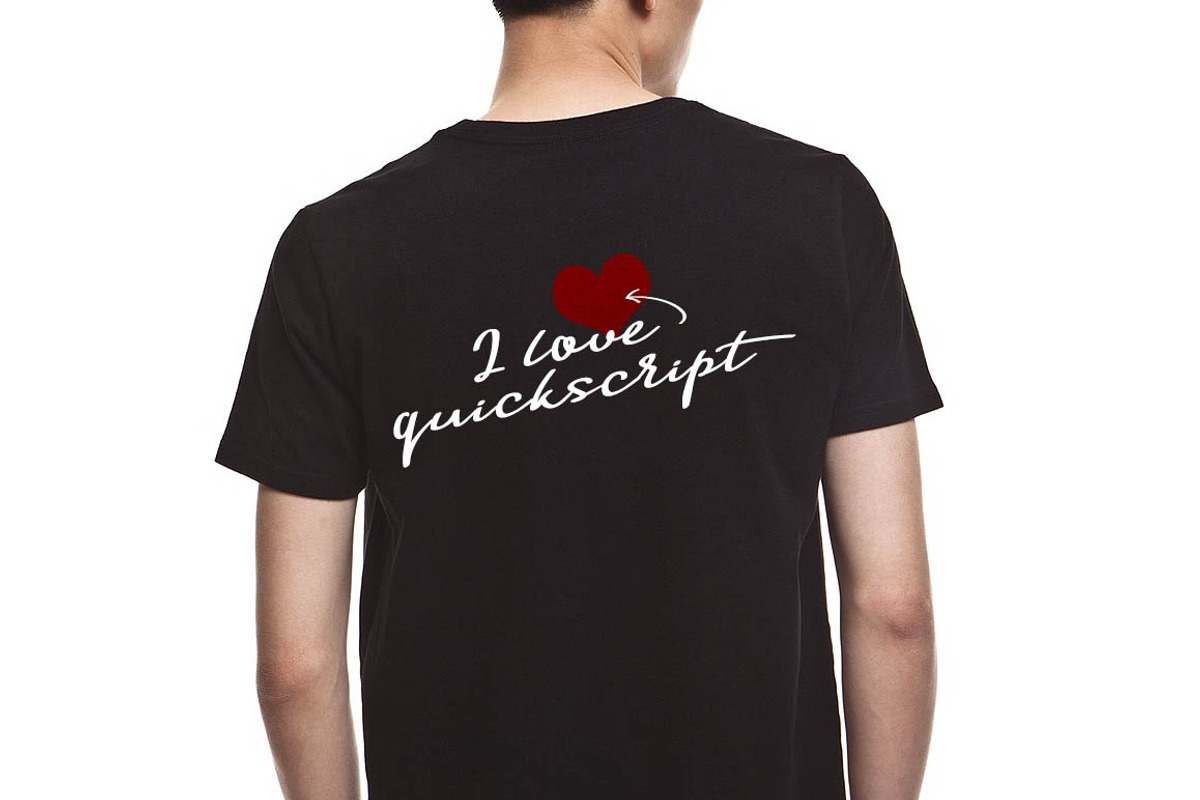
Quick Script Typeface
Quick Script Typeface by alphadesign is a font selected for branding, posters, packaging, typography.
- Nice hand written font, it is smooth, beautiful, contains more than 300 characters and some arrows, strokes.
Why Quick Script Typeface is worth a look
Quick Script Typeface by alphadesign fits naturally into Branding, posters, packaging, typography.